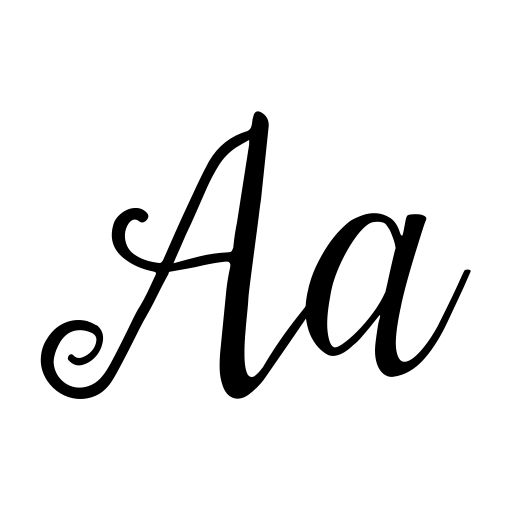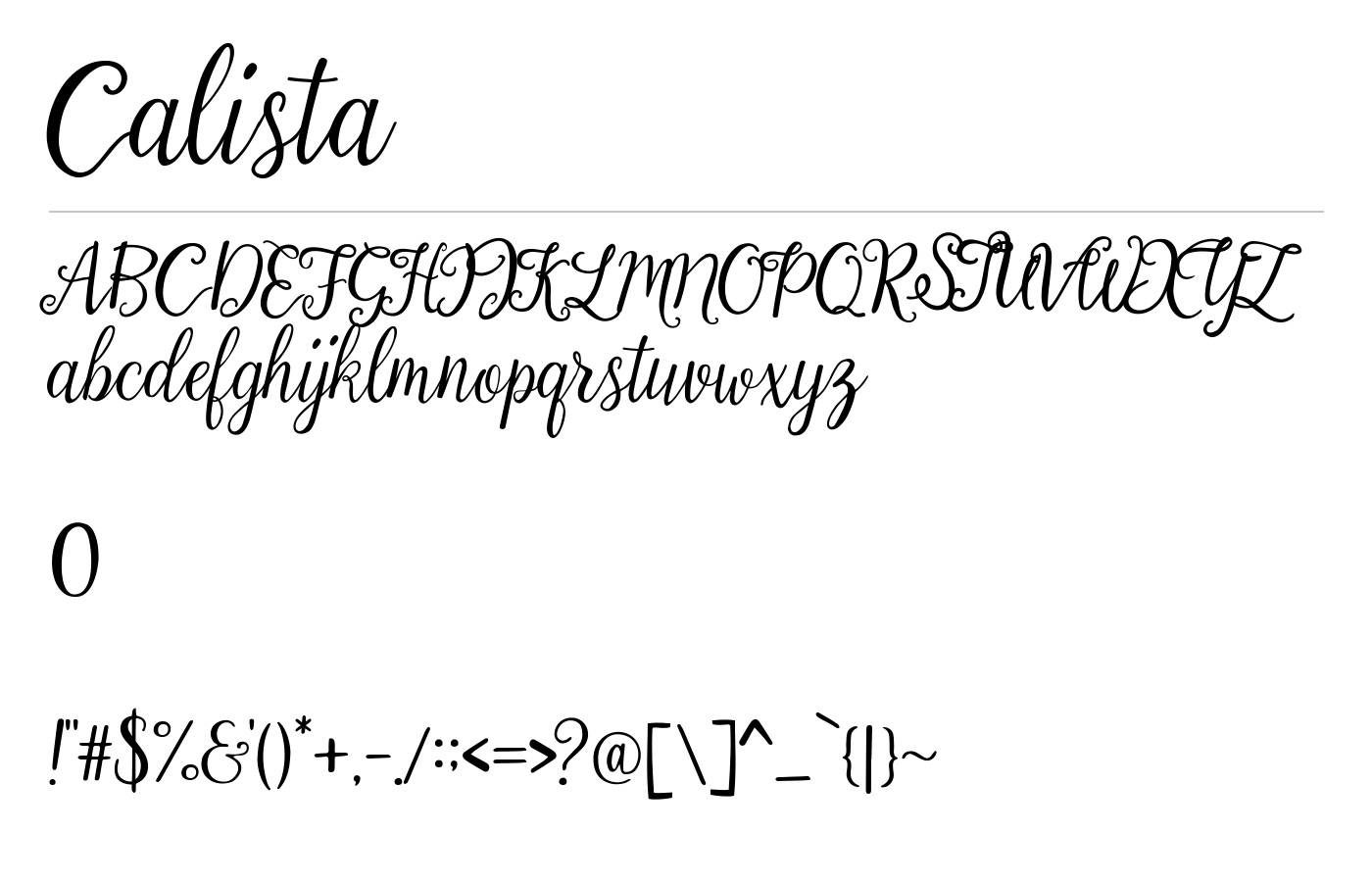
Calista is an elegant script font featuring flowing, handwritten-style letters with smooth curves and playful swashes on the uppercase characters. Its slender weight and tall, narrow proportions create a refined and delicate appearance, making it perfect for invitations, branding, and any design seeking a graceful, personal touch. The font’s stylish charm works best in projects that want to convey sophistication with a warm, artistic feel.
Calista Font
About Calista Font
| Designer | Vero Studio |